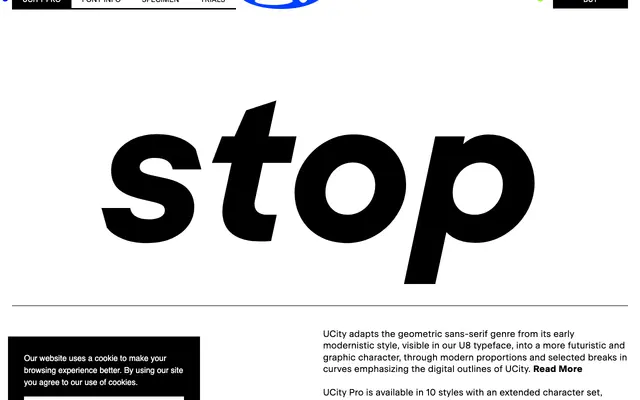
UCity Pro specimen from Fatype
A geometric sans with deliberately broken curves and modern proportions, developed from Fatype's earlier U8 as a more digital and graphic interpretation of the genre.
Available in 10 styles across five weights from Light to Black, each with matching italics, UCity Pro builds on the geometric sans tradition by introducing selected curve breaks that give the letterforms a distinctly digital quality. A variable font covering both weight and slant axes is included with the complete family. Extended character support covers Cyrillic alongside Latin, and a wide set of OpenType features accompanies the release.
UCity Pro is firmly within the geometric sans-serif tradition, explicitly described as evolving from the modernistic geometric style of Fatype's U8 typeface toward a more futuristic character through modern proportions and deliberate curve breaks.